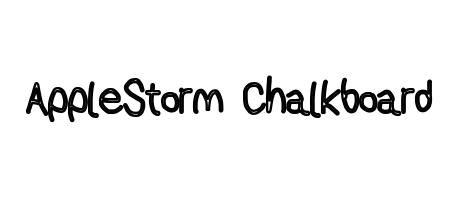
Chalkboard
Chalkboard Regular is a playful, slightly uneven font. Its rounded edges and slightly irregular letterforms mimic the hand-drawn quality of chalk on a blackboard. It evokes a sense of casual friendliness and a touch of nostalgic charm, perfect for projects needing a handmade aesthetic. The letters are bold and easily readable despite their informal character.